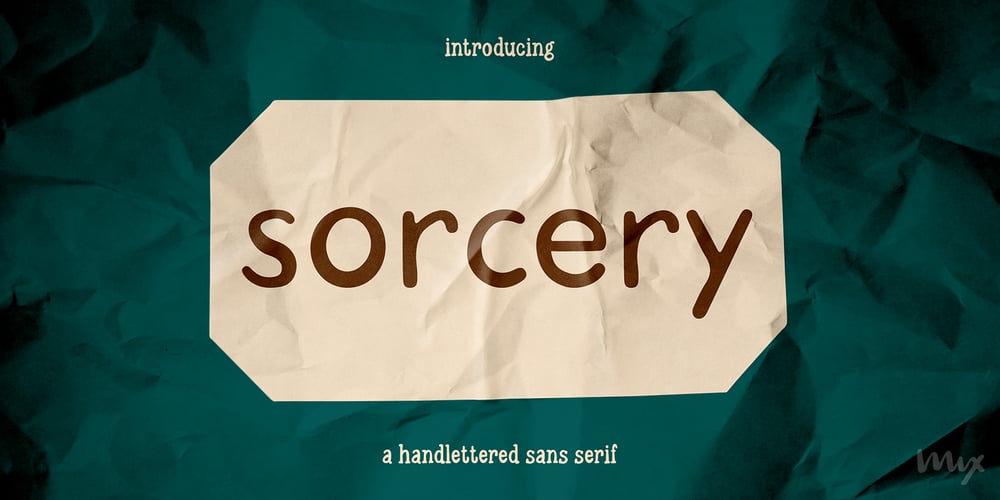
Sorcery Font Family was designed by Mikko Sumulong and published by Mix Fonts. Sorcery contains 1 styles and family package options. Conjure up some magic with SORCERY, a handlettered sans serif font with multilingual support. Crafted with a fountain pen in mind, this font is brimming with personality and charm. Perfect for social media graphics, posters, video text, and more, SORCERY‘s clean vector shapes ensure readability at any scale.Whether you’re a designer, blogger, vlogger, or small business owner, SORCERY adds a touch of enchantment to your projects. Its versatility makes it ideal for packaging, headlines, book covers, and movie posters. With support for over 100 languages, you can cast your spell worldwide. SORCERY is ready to bring your creative visions to life.SORCERY includes the following glyphs: ABCDEFGHIJKLMNOPQRSTUVWXYZ abcdefghijklmnopqrstuvwxyz 0123456789 !@#$%^&*()`~♥❤✿•· .,:;””|/?{}[]“”‘’-–—_÷×+−±≈=≠≥≤ …‚„©®™‹›«»°¹²³ªº¡¿₱¢€£¥½¼¾¶§№† ÁÀÂÃÄȦÅĂĀĄÆĆĈČĊÇÐĐĎÉÈÊĚËĖĒĘḞǴĜǦĠḠĤȞḦḢ IÍÌÎÏĪĮĴḰǨĹĽŁḾṀŃŇÑÓÒÔÕÖŌŐØŒṔṖŔŘṘŚŜŠŞȘ ŤṪŢȚÚÙÛŨÜŮŬŪŰŲẂẀŴẄẆÝŶŸŹẐŽŻƵÞẞ áàâãäȧåăāąæćĉčċçðđďéèêěëėēęḟǵĝǧġḡĥȟḧḣ ıíìîïīįĵḱǩĺľłḿṁńňñóòôõöōőøœṕṗŕřṙśŝšşș ťṫţțúùûũüůŭūűųẃẁŵẅẇýŷÿźẑžżƶþß